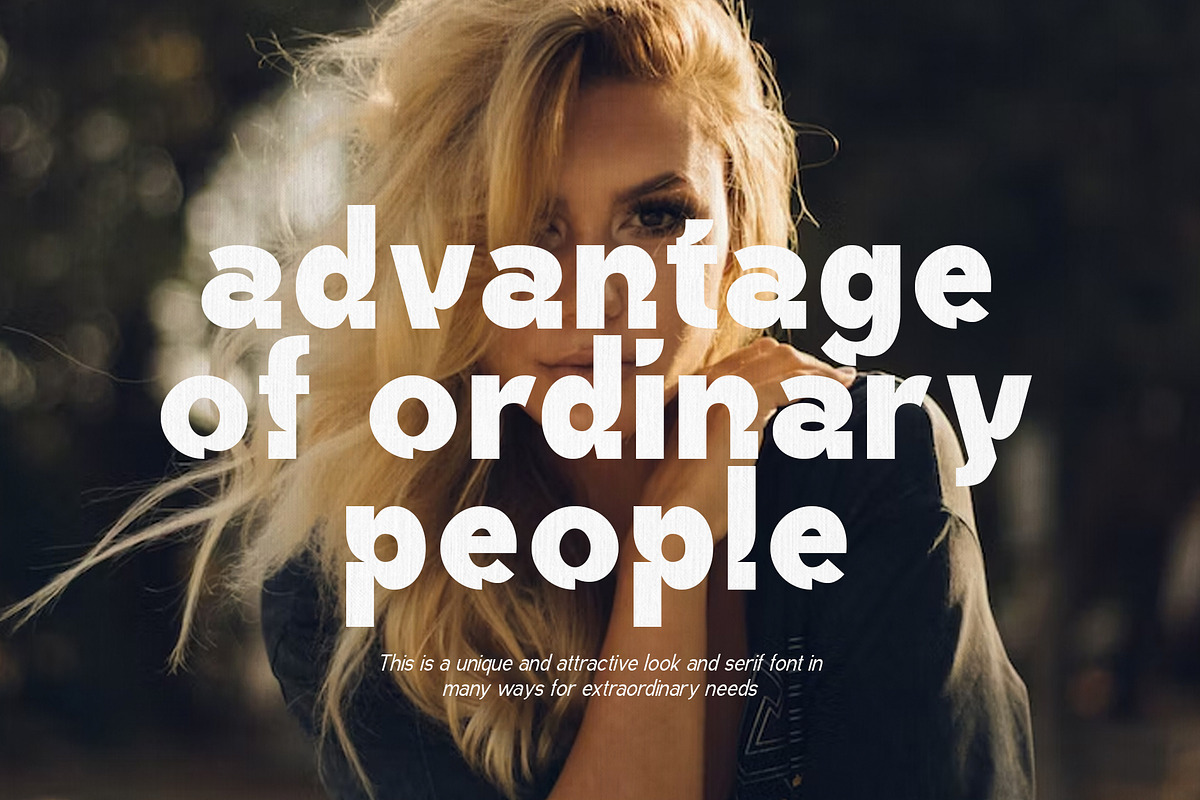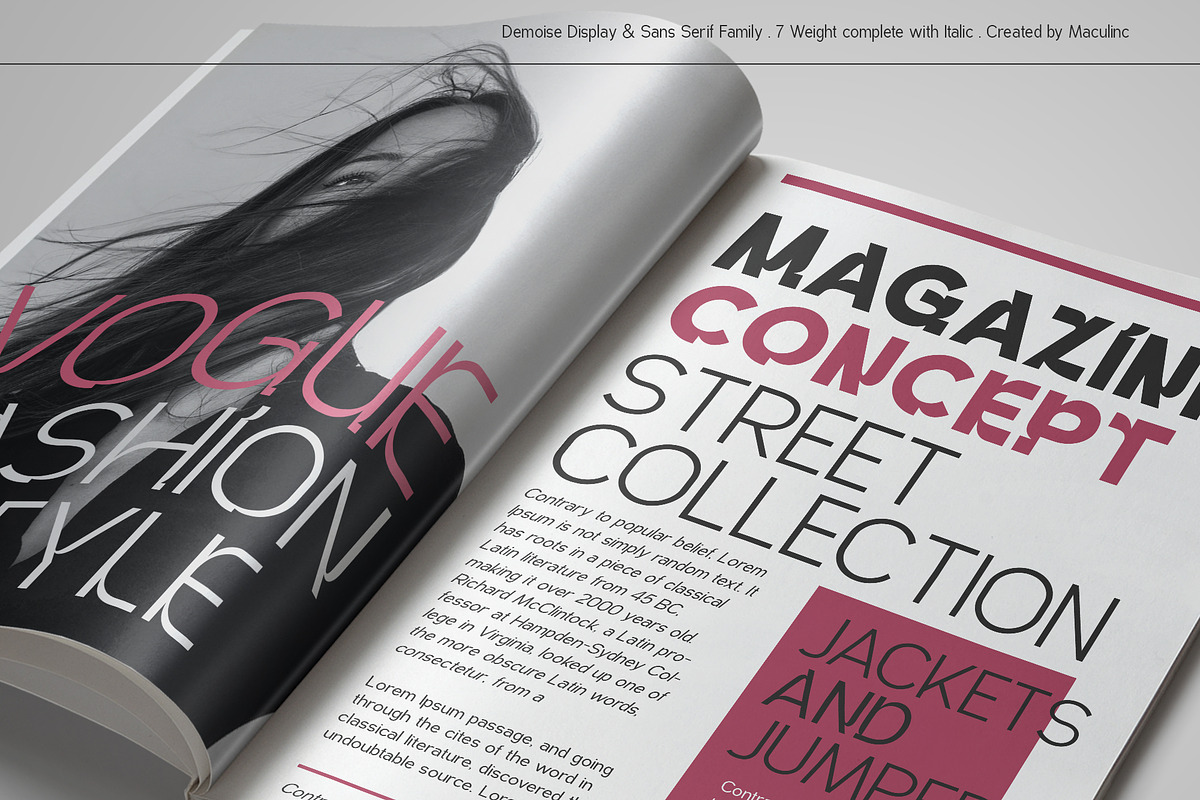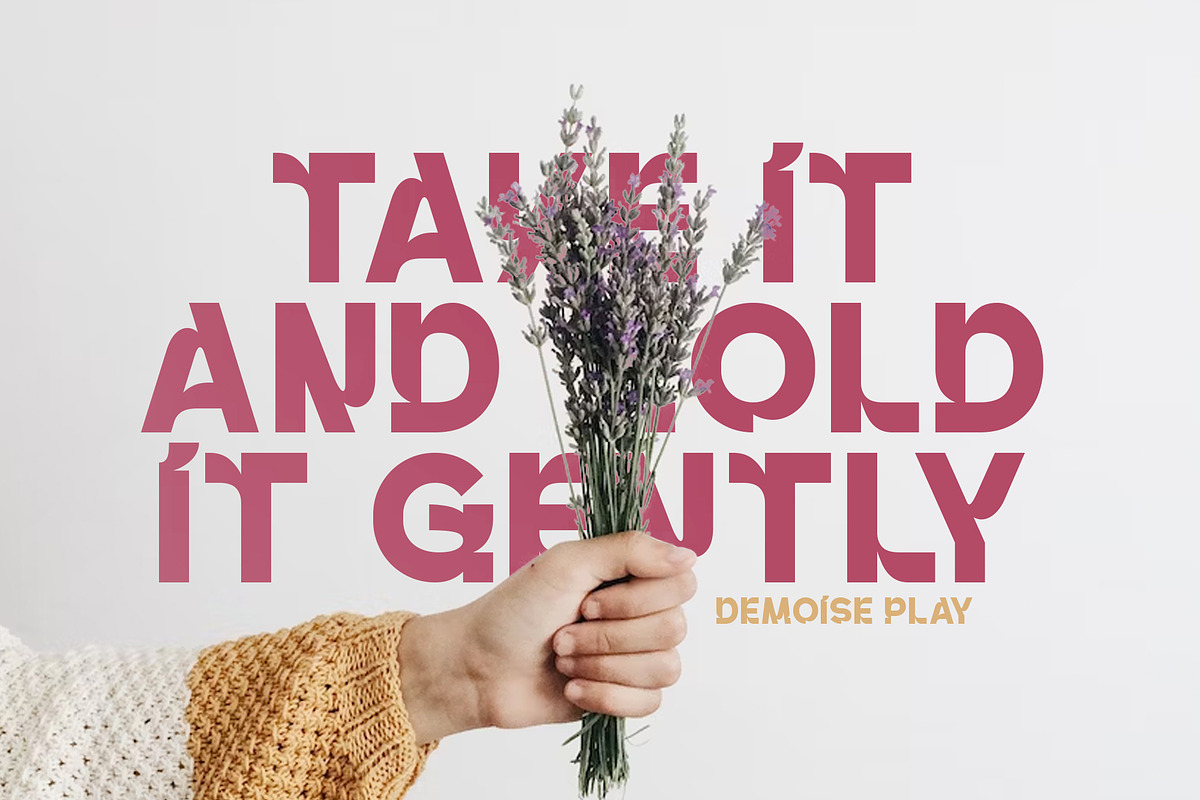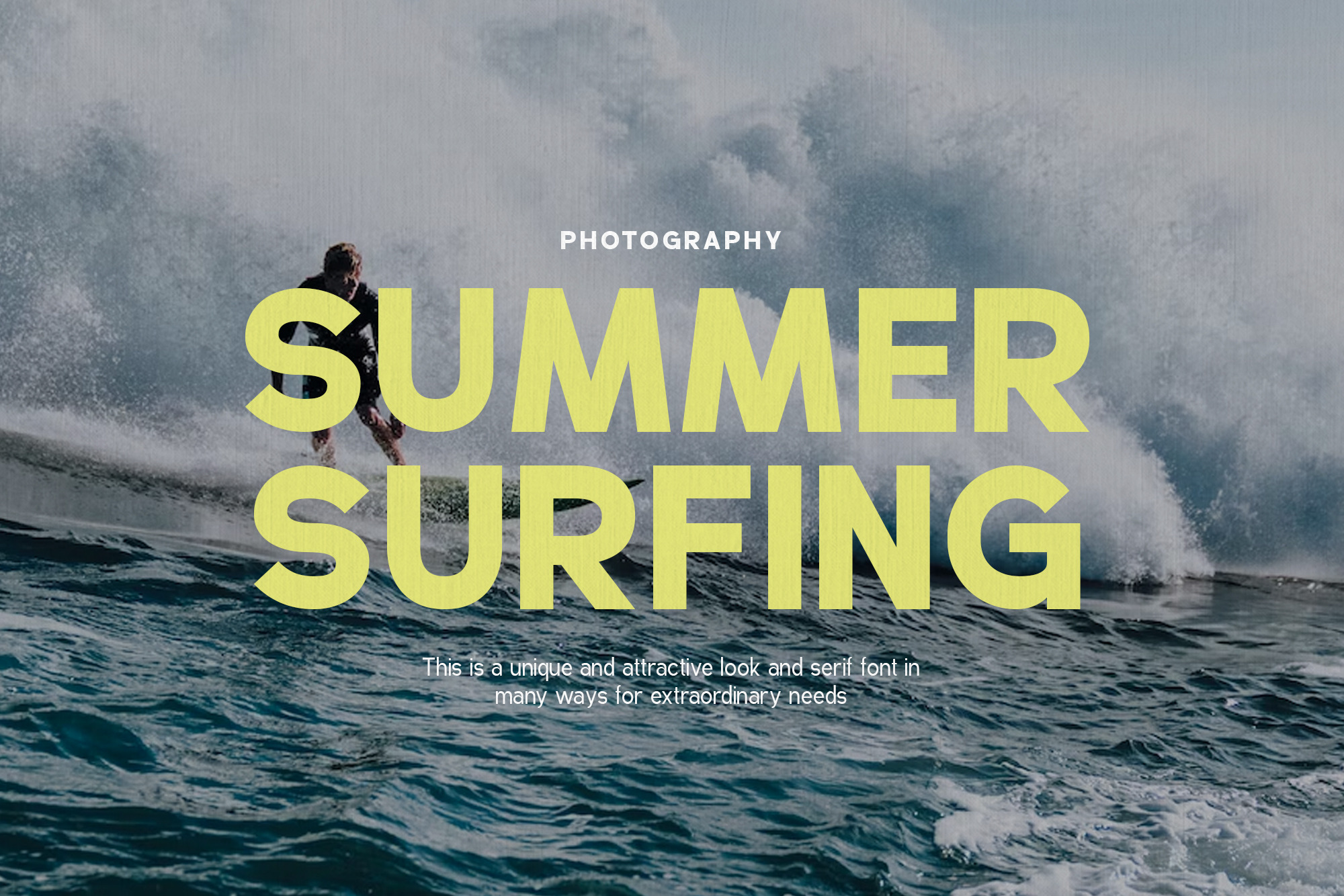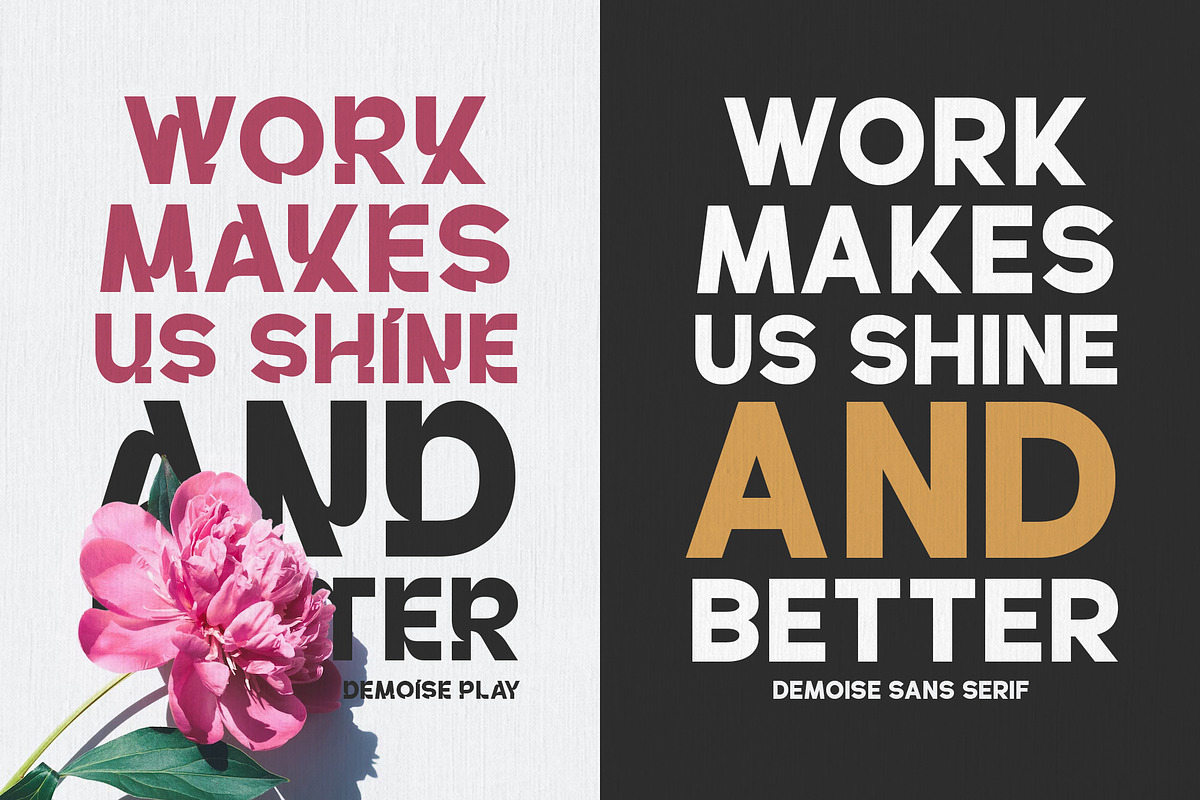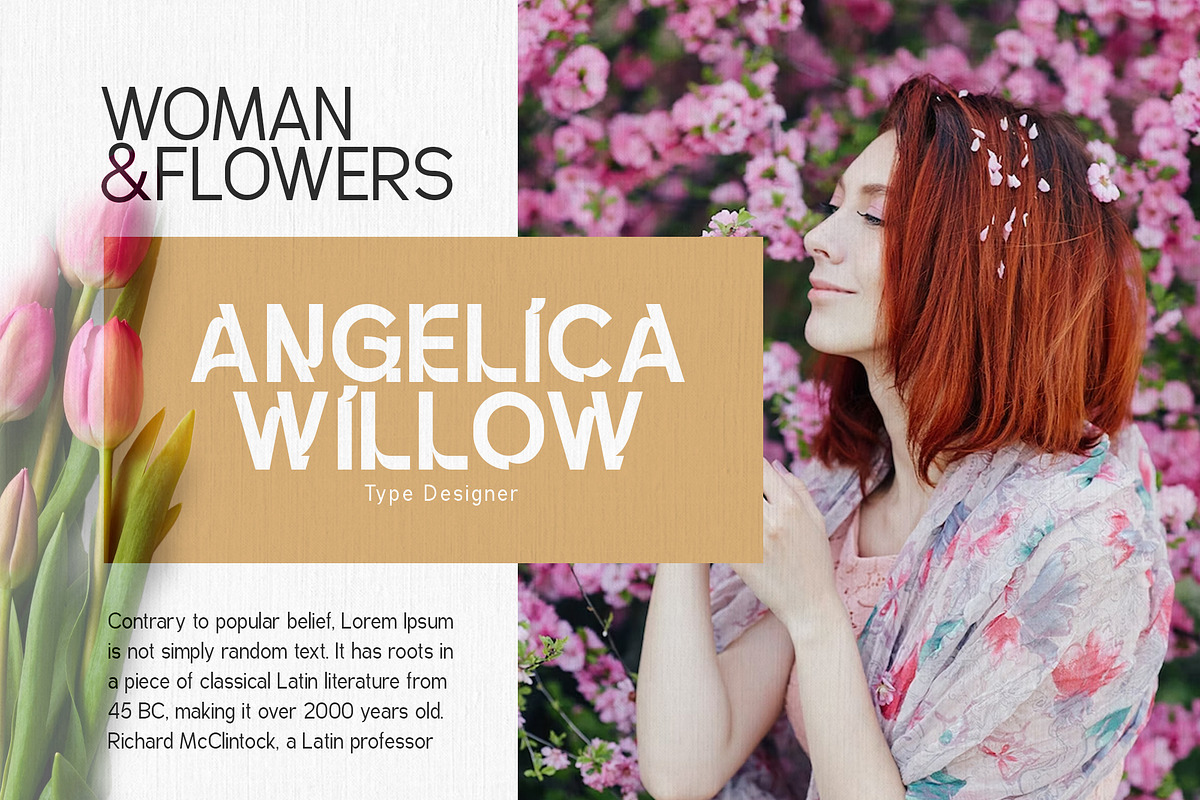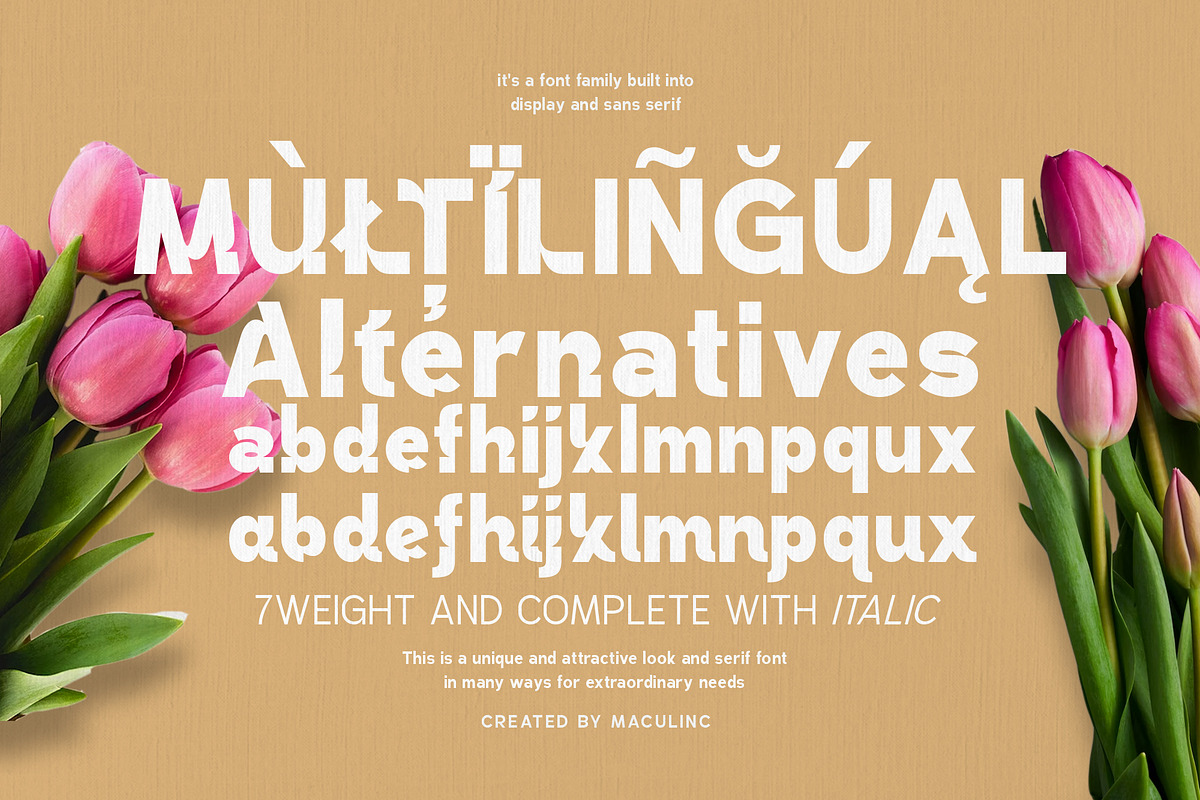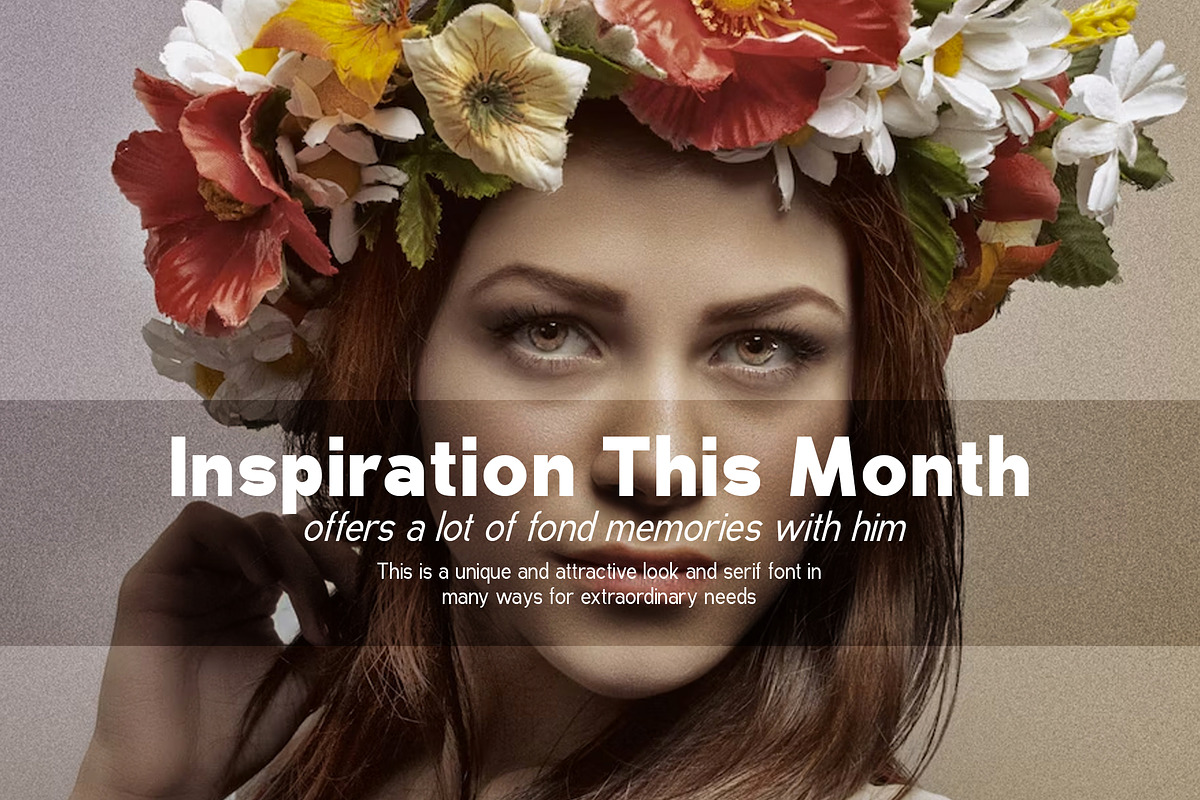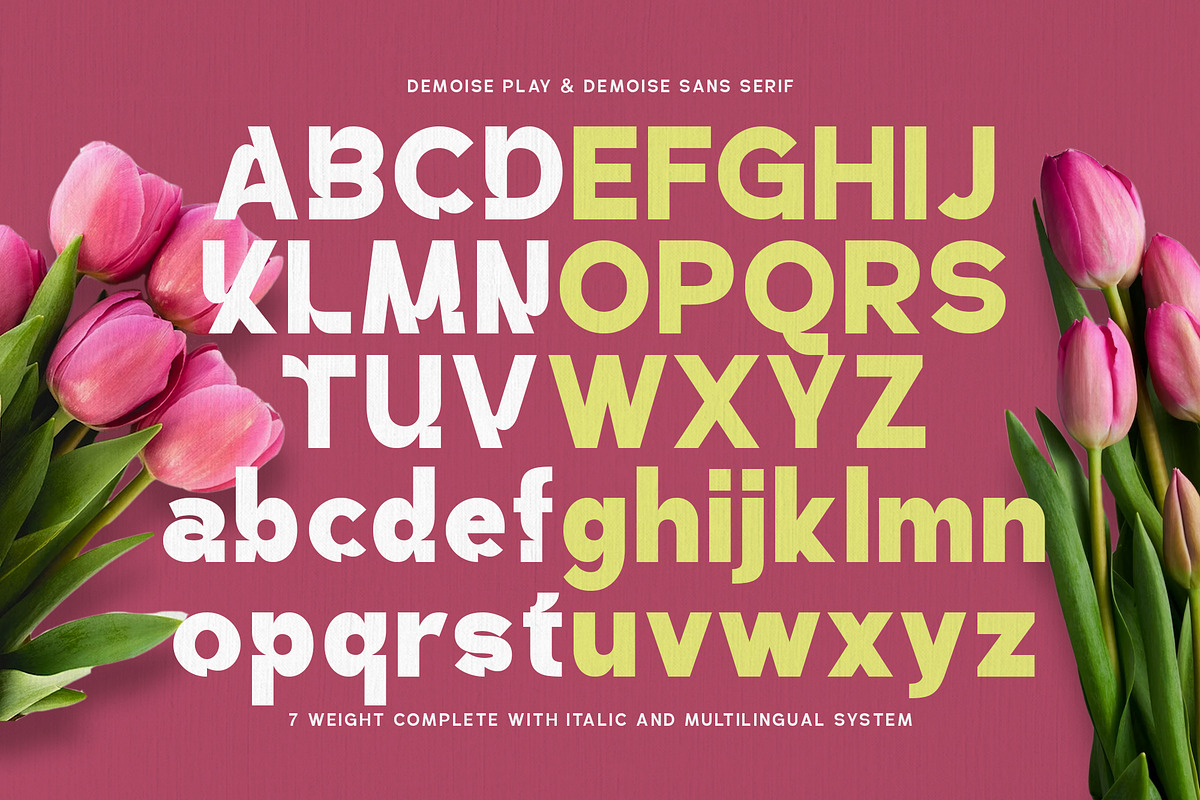
Demoise - 2 Font Styles (28 Fonts)
Demoise is a sans serif font family with 2 versions, a display version (Demoise Play) and a sans serif version (Demoise) containing 14 for each version and complete with italics. This font is styled unique enough to collaborate with the retro style, when you stick it on your designs such as posters, brochures, magazines, business cards or any other shape you will find something interesting and unique.
This font is equipped with a multilingual system and various languages such as: Baltic, Basic Latin, Central European, Dutch, Euro, Romanian, Turkish, Western European and others.al European, Dutch, Euro, Romanian, Turkish, Western European and others.